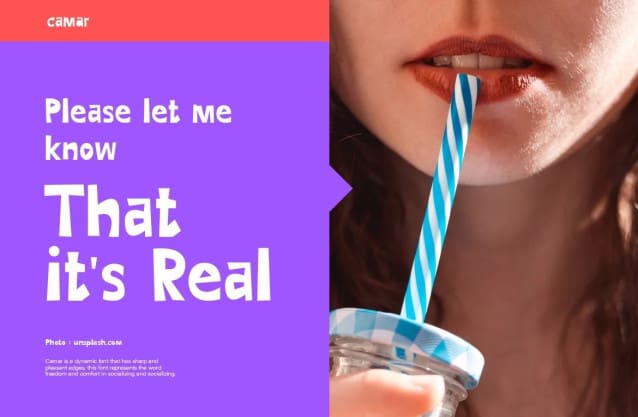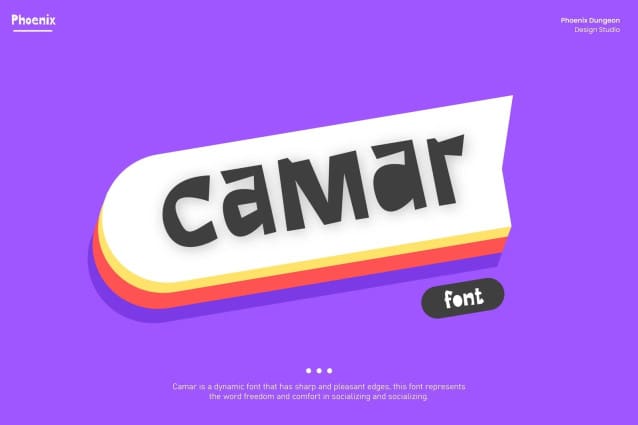
Camar Display Font
Camar Display Font is a playful display font that combines the clean simplicity of paper with a candy-inspired charm. Its crisp, rounded letterforms and vibrant design make it perfect for eye-catching titles, fun branding, and whimsical projects. Camar’s clean lines and cheerful style bring a sense of joy and creativity, ideal for designs that aim to captivate and delight. Whether used for children’s products, party invitations, or creative advertisements, Camar adds a touch of playful sweetness, ensuring your message stands out with a clean and engaging look.